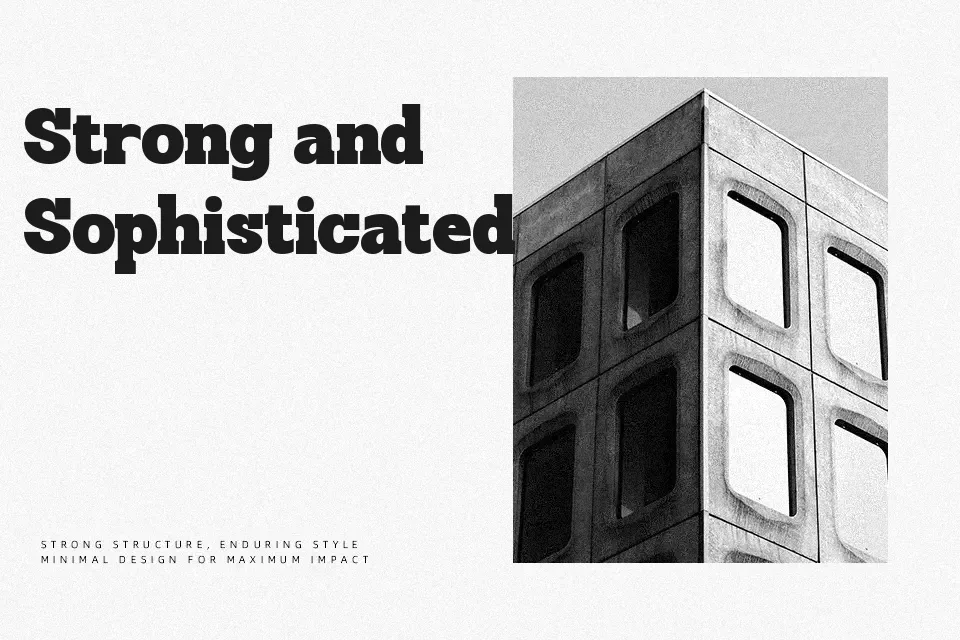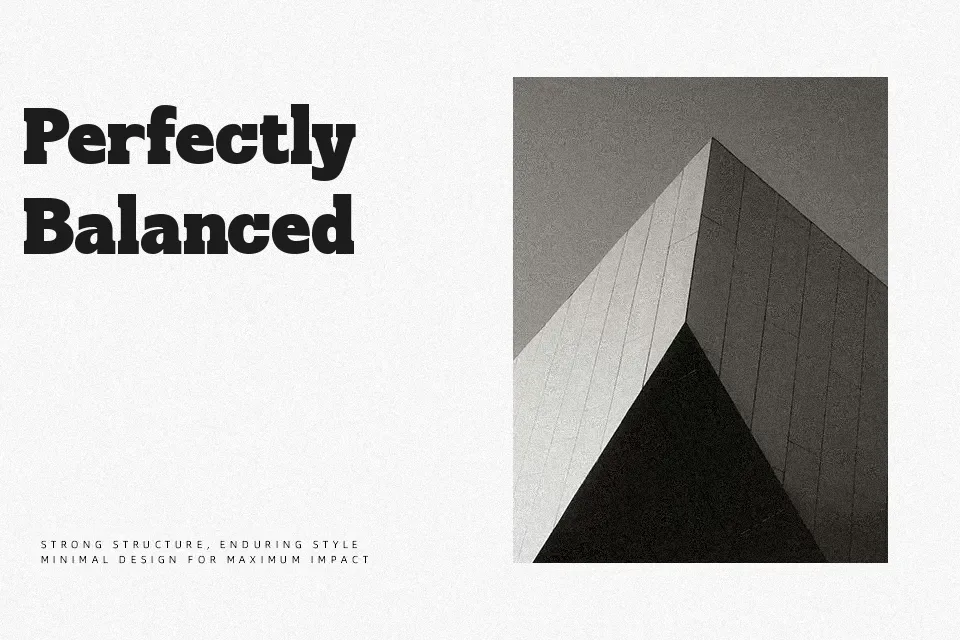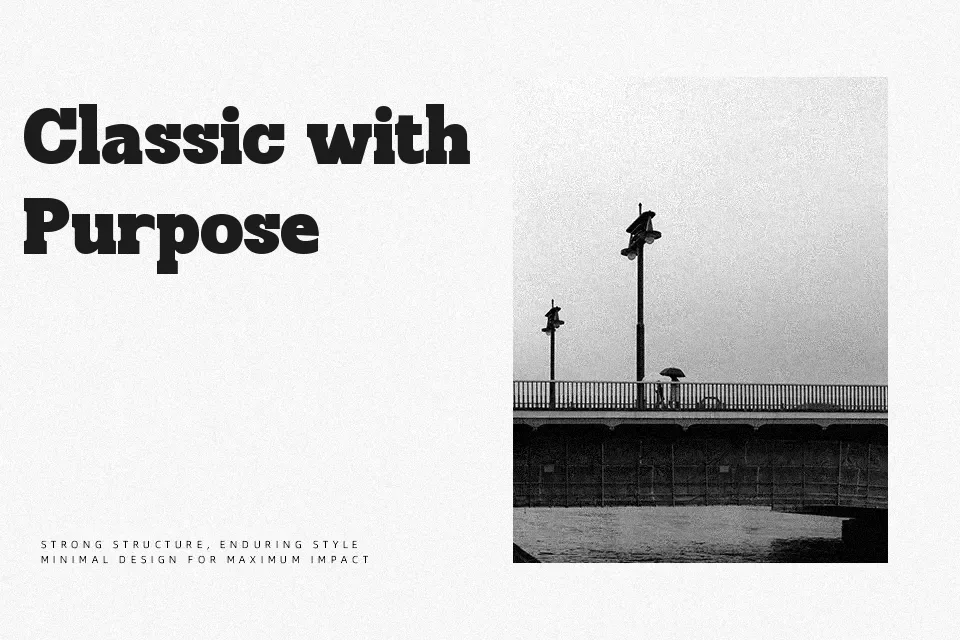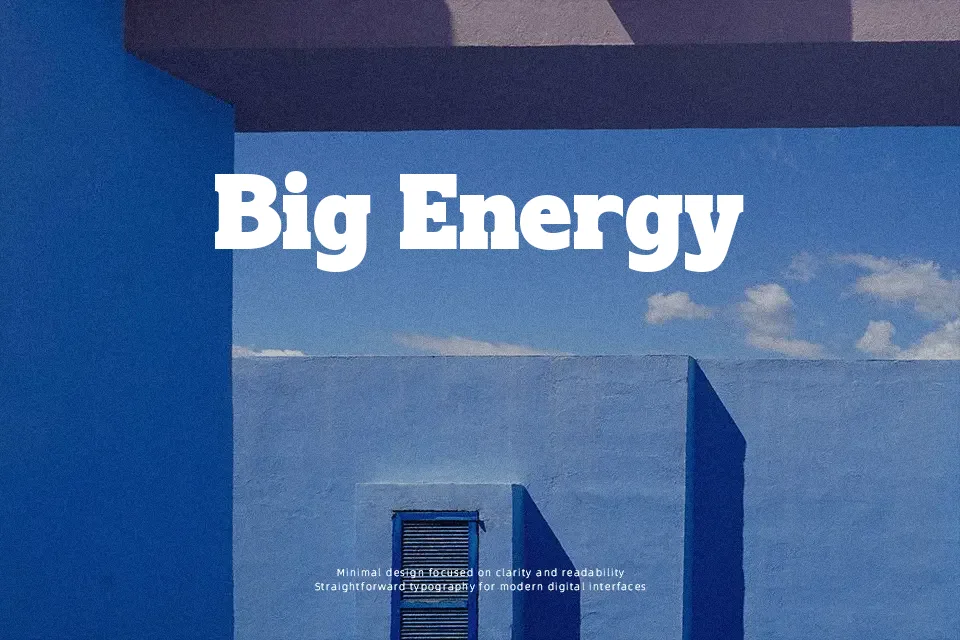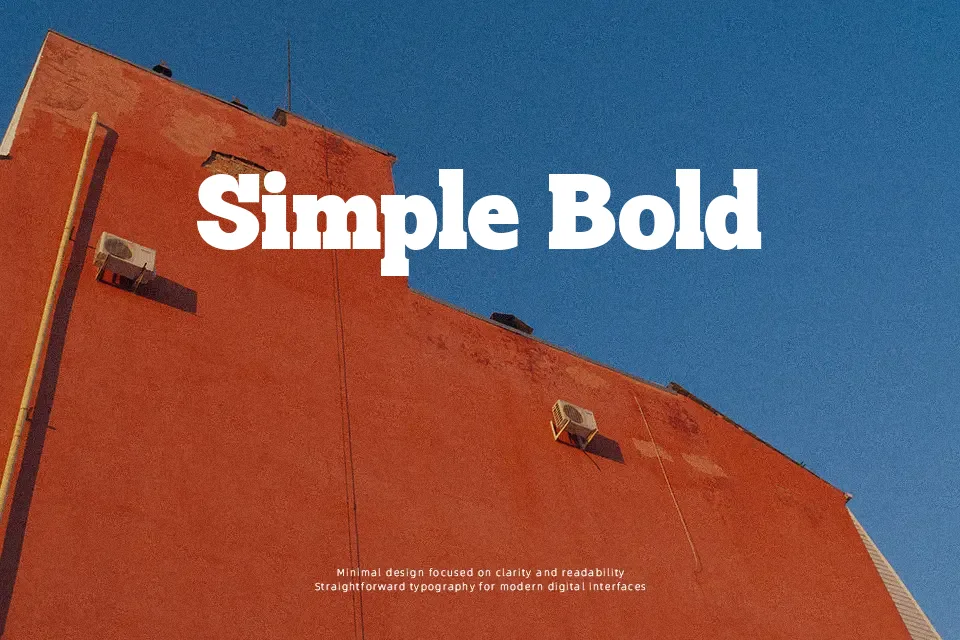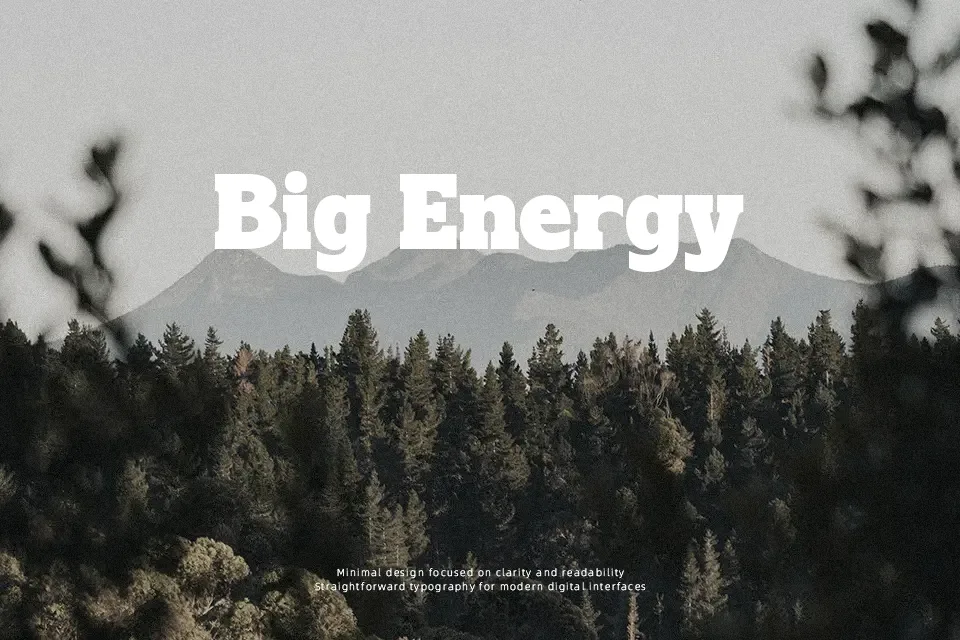
Catesoge Font
Catesoge Font showcases heavy block serifs paired with uniform, robust stroke weights that give each letterform an assertive presence. The uppercase glyphs feature wide, squared proportions and controlled internal counters, ensuring distinct silhouettes across large compositions. Generous horizontal footprint and consistent character spacing provide steady visual rhythm across short titles. While the sturdy construction delivers excellent impact in merchandise branding and poster headers, the low contrast and substantial serifs become overly dense when set in continuous body copy. For optimal clarity, the typeface should be reserved for prominent display applications rather than small-scale text.
Best For: vintage product packaging, retro poster headlines, apparel graphics, merchandise branding
Not Ideal For: long body text paragraphs, mobile app UI labels, dense editorial copy